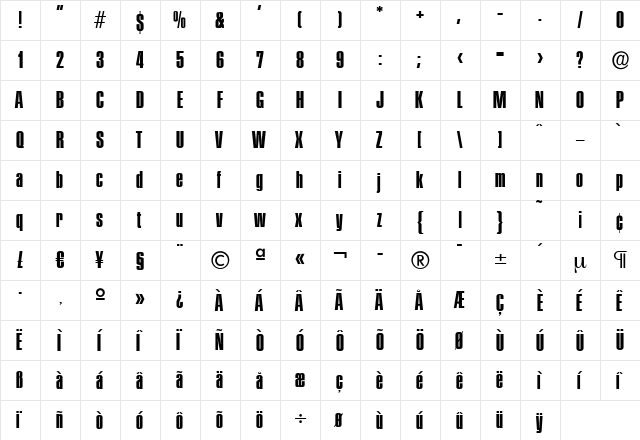
FrankBecker Bold
Design Context for FrankBecker Typeface
FrankBecker takes a measured approach to typography — its balanced proportions and neutral character make it a reliable workhorse for both digital and print work. The heavy weight commands attention and anchors typographic hierarchies.